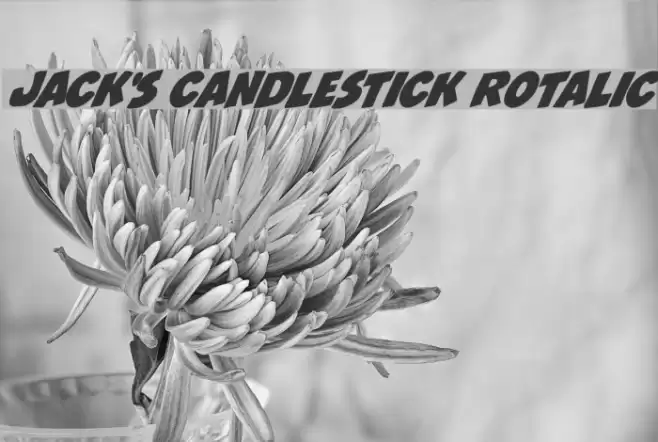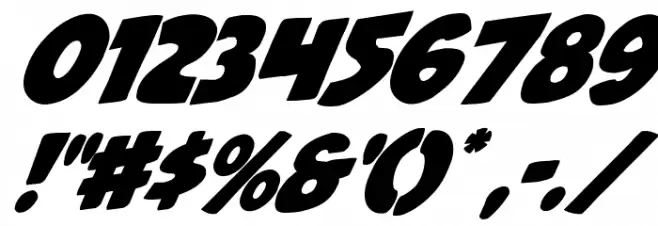
Jack's Candlestick Rotalic Font
Jack's Candlestick Rotalic Description
This font features bold, slanted characters with a dynamic and energetic style. The letters are thick and robust, giving a strong visual impact. The italicized nature adds a sense of motion and fluidity, making it ideal for attention-grabbing designs. The characters are closely spaced, enhancing the compact and powerful appearance. The numbers and special characters maintain the same boldness and slant, ensuring consistency across all elements. This font's high contrast in stroke thickness further emphasizes its bold and assertive nature.
A bold, italicized font with strong, dynamic characters and high contrast from Comic fonts.
- Proposed Projects: Perfect for posters, headlines, logos, and branding materials that require a bold and energetic look.
- Character Spacing: Tight